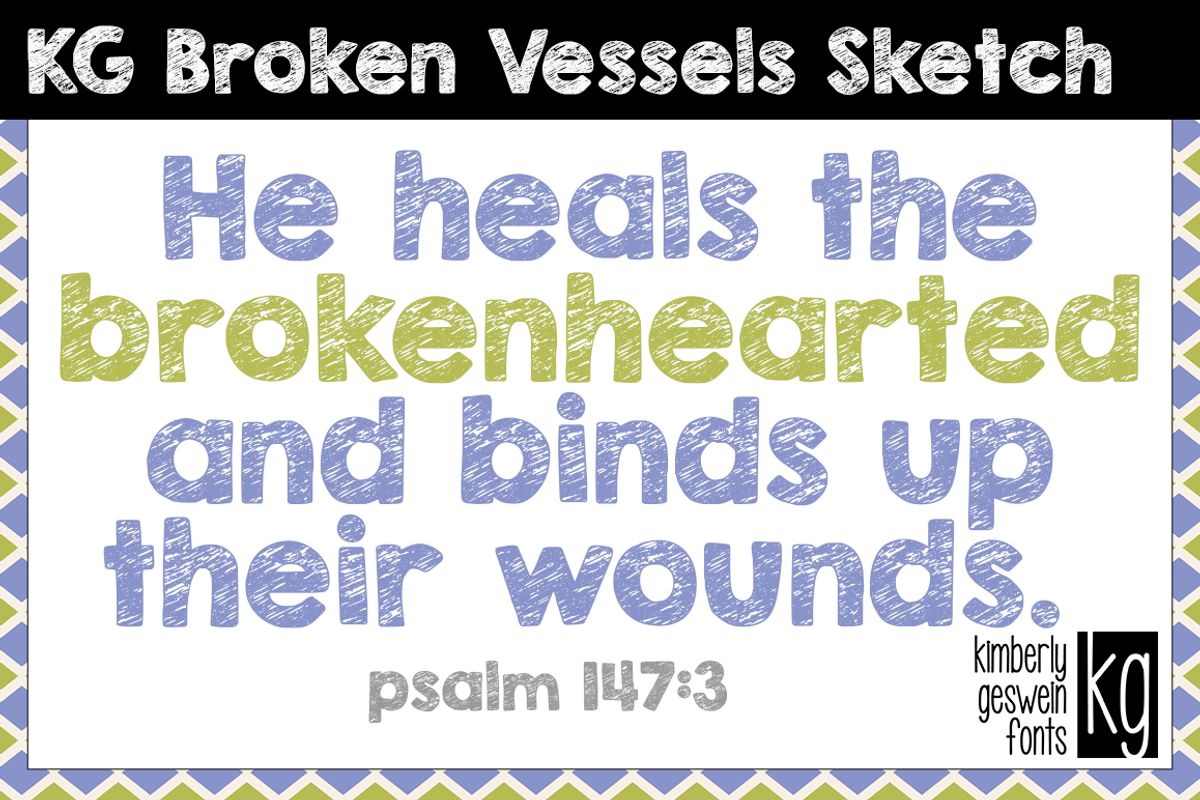
The KG Broken Vessels Sketch Free Download is a unique and artistic typeface that combines rough sketch-style lettering with a modern flair. This font is perfect for designs that need a distressed, hand-drawn look, adding character and personality to any project. Whether you're creating posters, logos, book covers, or illustrations, KG Broken Vessels Sketch adds an edgy, creative touch to your designs.
KG Broken Vessels Sketch Free Download is ideal for designers who want to incorporate a hand-crafted feel into their work. Its rough, sketch-like quality is perfect for edgy branding, artistic projects, or anything that needs a creative, free-spirited look. Download this bold font today and give your designs an unforgettable, artistic edge!